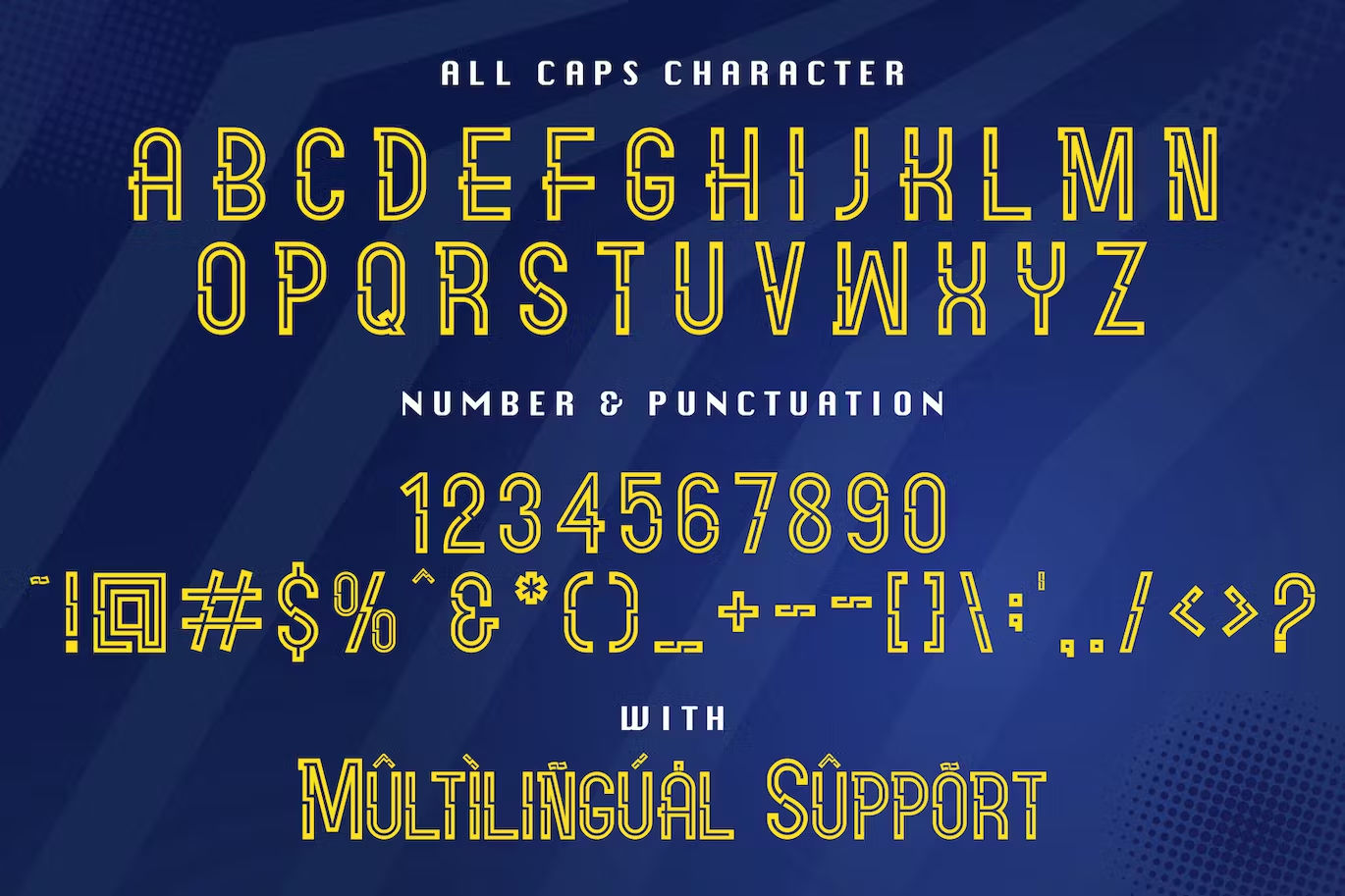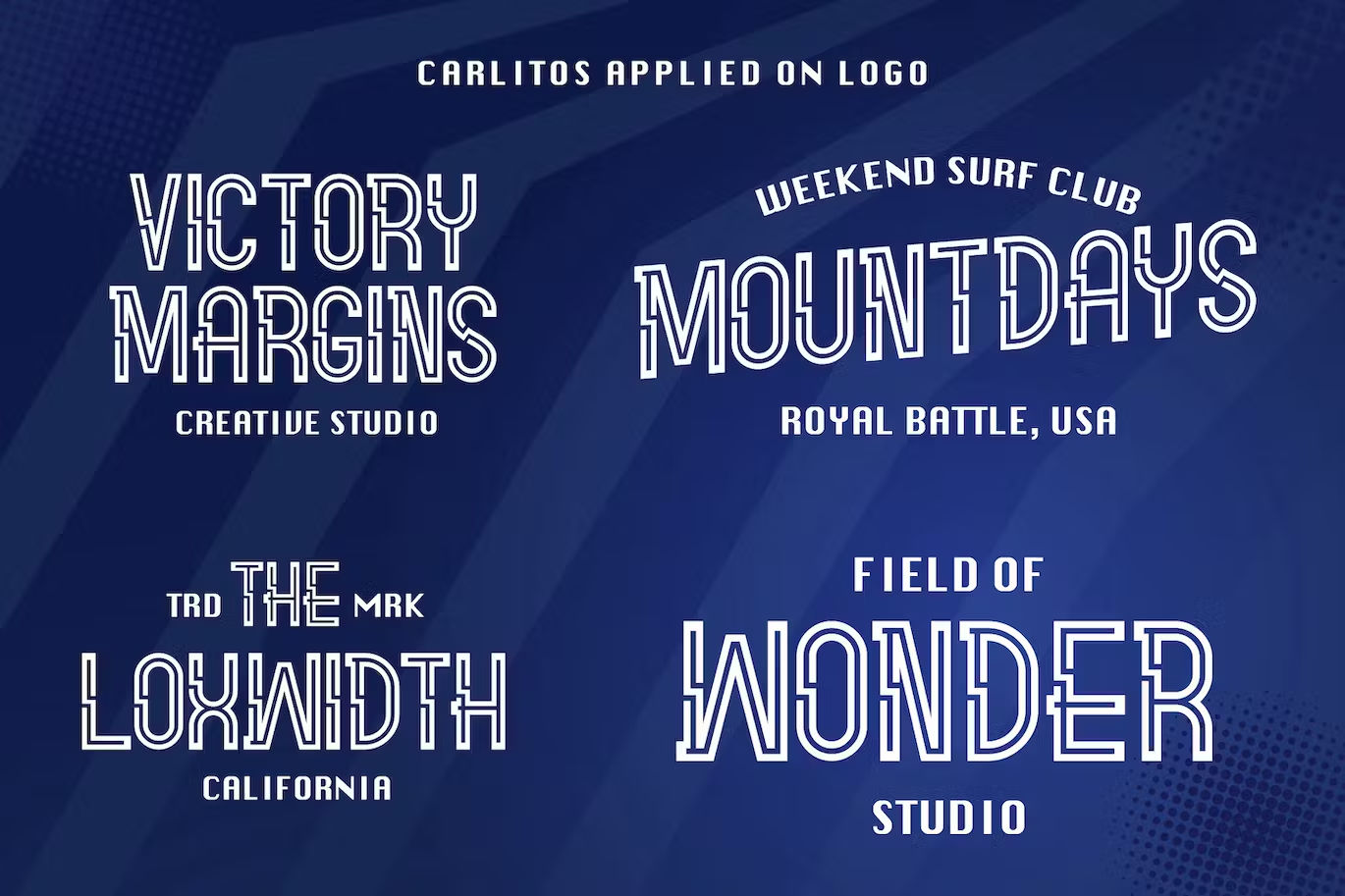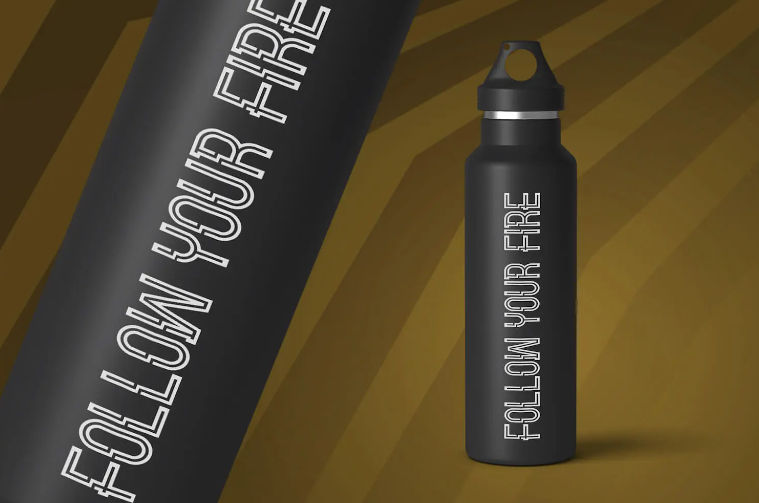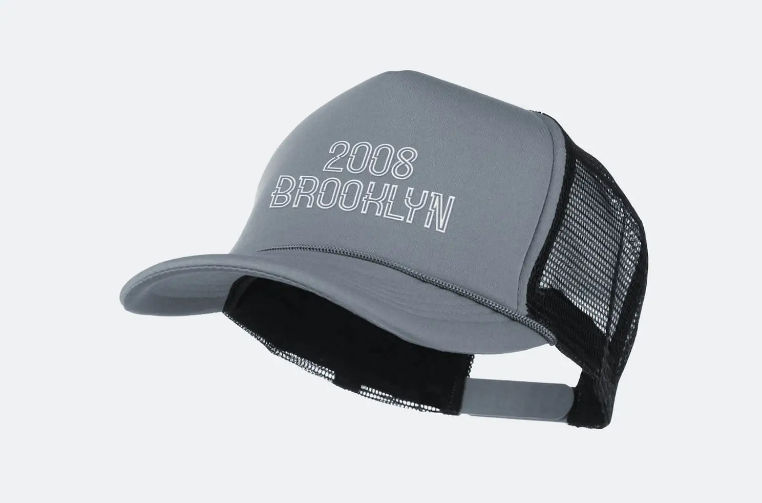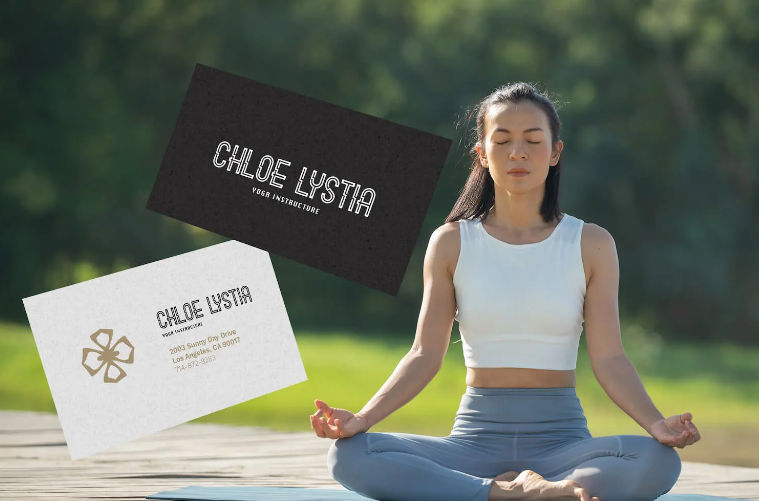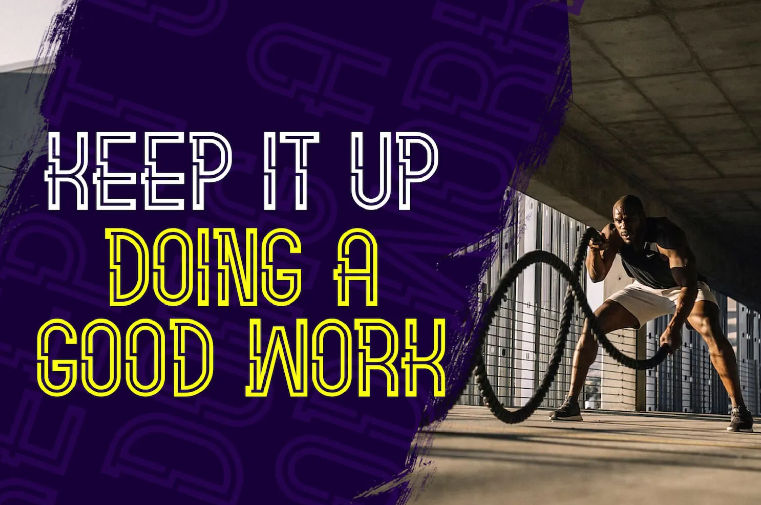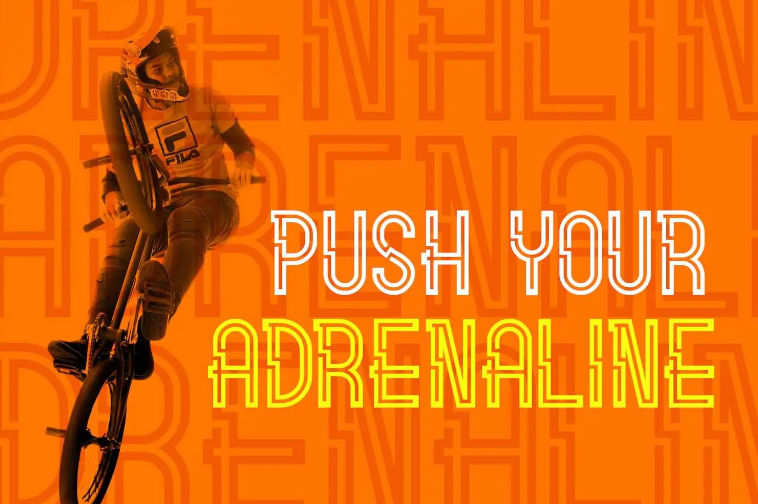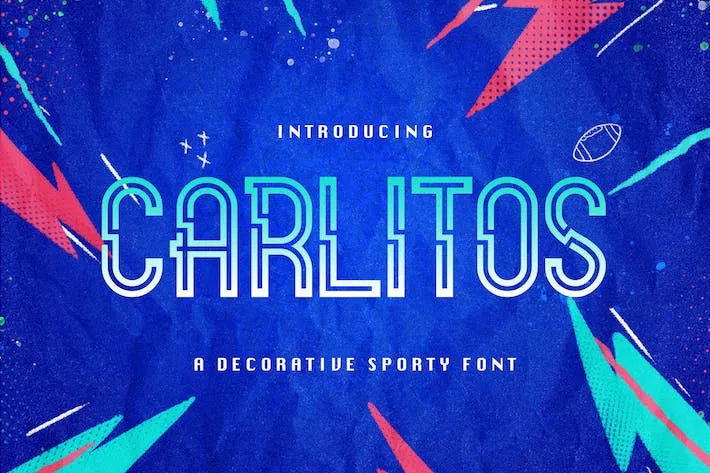
Carlitos Font: a Vigorous Font to Ignite Your Sportsmanship
The text in sports design can be understated. However, it can convey impactful feelings for its audiences. Carlitos font can help you to create sports designs that bring your supportive audiences. Check out how you can utilize this font for sports design in this article!
Get to Know with the Robust Font Style, Carlitos Font
Carlitos Font: a Vigorous Font to Ignite Your Sportsmanship
Carlitos is one of the innovative fonts from StringLabs. Like other decorative fonts, this font has an eccentric and unique design. The style is similar to the outlined fonts with additional decorative designs.
You can find the similarity in the geometrical outlines of its characters. The benefit of this font is that you can scale the font as you want without distorting the shape. Therefore, it will be nice to design posters or brochures that need to catch people’s attention. Understanding brochure meaning can also help guide your layout choices to ensure your message is both visually striking and clearly communicated.
Sometimes, the font is also referred to as a hollow font since the letters of the font are hollowed out. The usage of this font is fit for emphasizing the background design. As a result, you can match the text and the background to create a seamless design.
Carlitos Font Preview
You can use this font for a wide range of purposes. Carlitos evokes a sense of strong sportsmanship that makes it great for sports-related themes. However, its simplicity also exudes futuristic and modernity. Therefore, you can also use it for modern designs.
Where You Employ This Font for Your Sports Design?
A decorative font like Carlitos font is perfect to attract your audience. This font will help you gain engagement with the customer and raise brand awareness. There are many mediums to boost your brand with this font. Take a look at some design ideas you can do with this font.
1. Brand’s Logo
Carlitos Font Sample Usage for Logo Design
Customers are most likely to purchase from a brand with a logo they recognize. For that reason, choosing the font for your brand is essential. Fortunately, you can make a memorable logo with Carlitos typeface. The font will aid you in establishing your brand’s name and tone.
You can combine this font with other font types, especially sans-serif fonts. Combining Carlitos and sans-serif fonts can create an absorbing design that draws people’s attention.
2. Merchandise and Product Design
Sample Merchandise Design on Tumbler with Carlitos Font
Sample Merchandise Design on Cap Using Carlitos Font
Carlitos font comes in handy to give you ideas to design your merchandise. The hollowed-out letters form matches well with minimalistic designs. With its bold and clear letter lines and strokes, it fits perfectly as a text element to create a strikingly simple design for your sports merchandise and products.
3. Business Card
Sample Business Card Design with Carlitos Font
Since a business card also reflects your brand’s image, you must choose a font that conveys your brand’s messages.
As an illustration, for sports instructors, like yoga instructors, Carlitos can be your choice for designing your business card. The font can evoke a sense of sportsmanship and a feeling of relaxation and freedom at the same time. It would help to deliver the identity or message you want to share with your audience.
4. Brochure and Advertisement
Choosing a font for advertisement is also essential for your business. The font can help you capture attention, deliver messages, and create brand identities. You can use Carlitos font to create a remarkable advertisement.
In creating the logo, this font matches a sans-serif font for creating minimalist designs. The pair mentioned helps you to craft a delightful design that conveys a feeling of modernity and minimalism.
5. Social Media Content
Sample Brochure Design Utilizing Carlitos Font
Sample of Carlitos Font Application for Social Media Content Design
Nowadays, social media plays a crucial role in digital marketing. Thus, you must engage with your audiences through social media content. Fortunately, Carlitos can be your tool to boost your social media engagement as well! This unique font will intrigue your creativity to create captivating social media content.